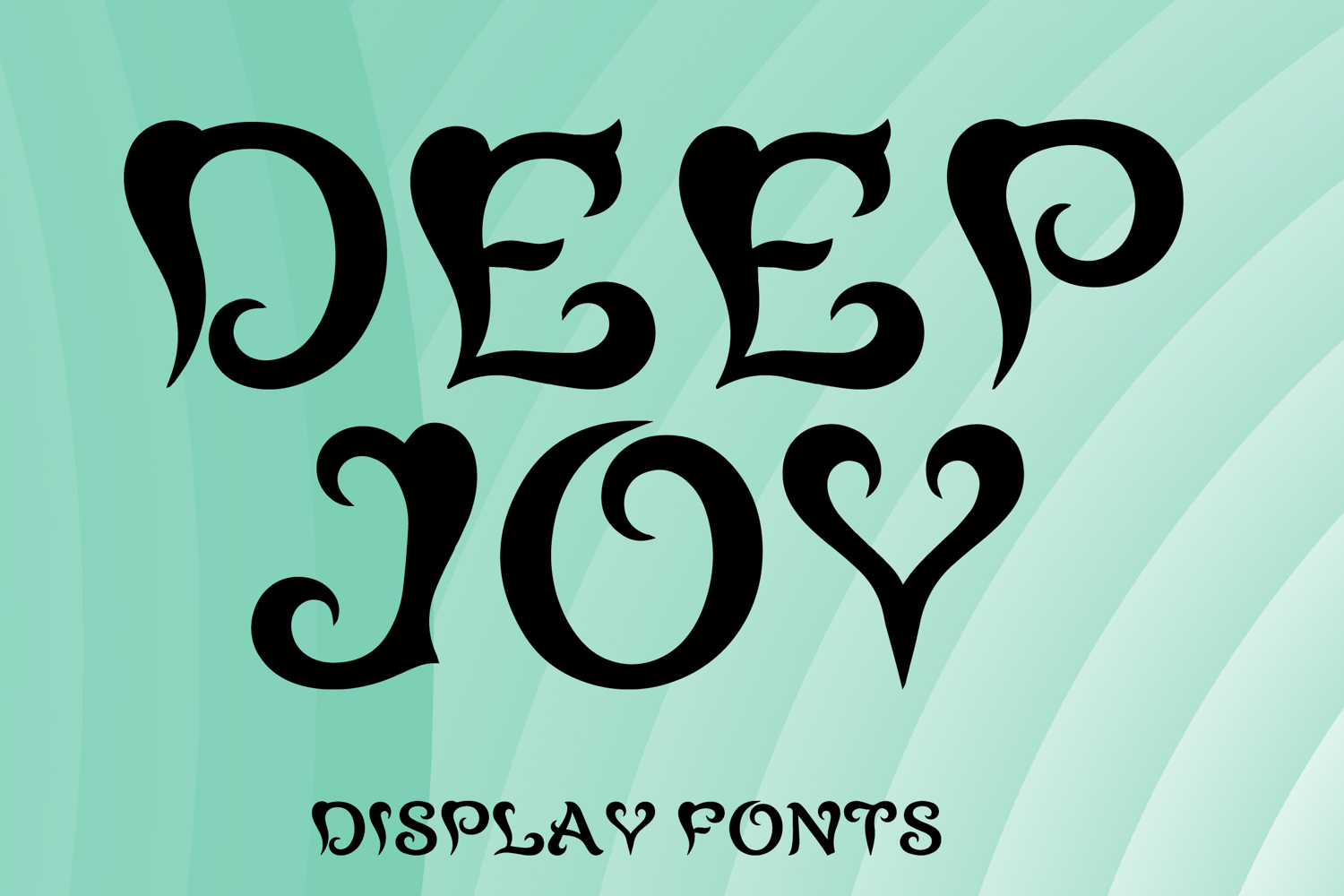
DEEP JOY
DEEP JOY is a whimsical decorative display font with a magical vintage-inspired style and expressive ornamental charm. Its uppercase letterforms feature bold flowing curves, dramatic spiral details, and heart-like flourishes that create a dreamy, playful, and eye-catching look. Designed with uppercase letters A–Z and numbers 0–9, DEEP JOY is perfect for branding, posters, packaging, invitations, logos, social media graphics, and creative projects that need a bold and memorable statement.